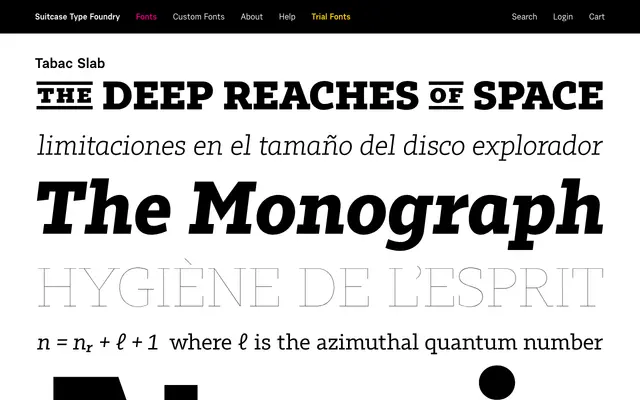
A slab serif member of Suitcase Type Foundry's wide-ranging Tabac superfamily, designed for text-weight editorial use.
Tabac Slab sits within a broad type system that spans sans, slab, glam, micro and mono variants, suggesting a family built for sustained publishing environments where multiple voices are needed. The slab cut offers serif warmth and structure suited to body text and mid-scale display. Related families like Tabac Micro and Tabac Mono hint at serious attention to optical sizing and functional range across the system.
Part of the extended Tabac superfamily, the Slab variant applies bracketed or geometric slab serifs to what is otherwise a humanist-influenced text family, placing it squarely in the slab serif category.